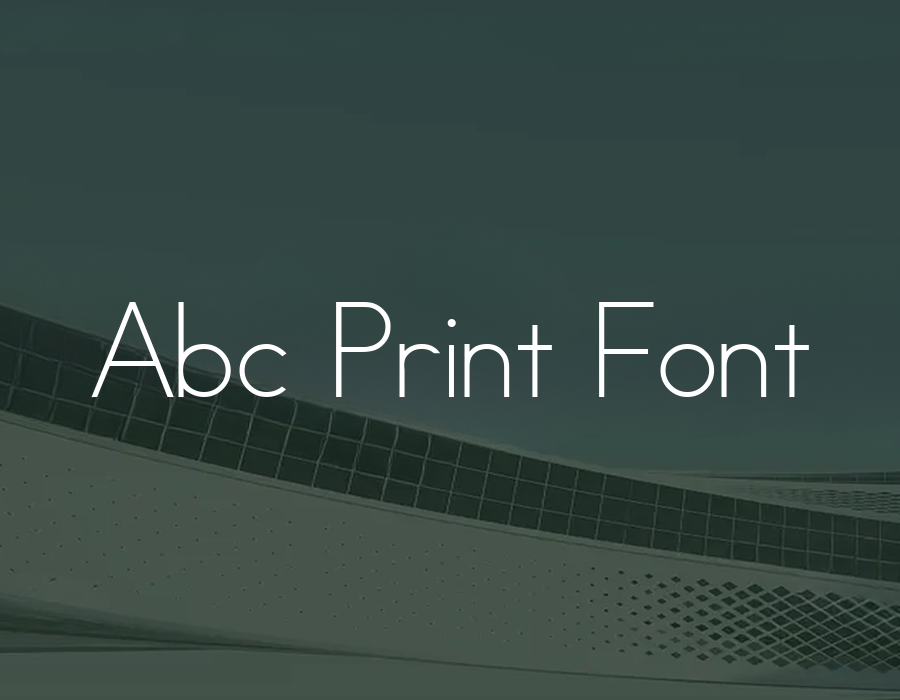
About Abc Print Font
Abc Print refers to a category of educational fonts designed specifically for teaching handwriting to preschool and kindergarten students. These fonts feature clear, simple letterforms—often in a dotted, dashed, or outlined style—that allow children to trace over them to learn proper letter formation and motor skills. They typically mimic standard block print handwriting (like D'Nealian or Zaner-Bloser styles) used in elementary schools. This practical, no-frills design focuses entirely on legibility and guidance, making it a staple resource for teachers and parents creating custom tracing worksheets, flashcards, and name practice sheets.